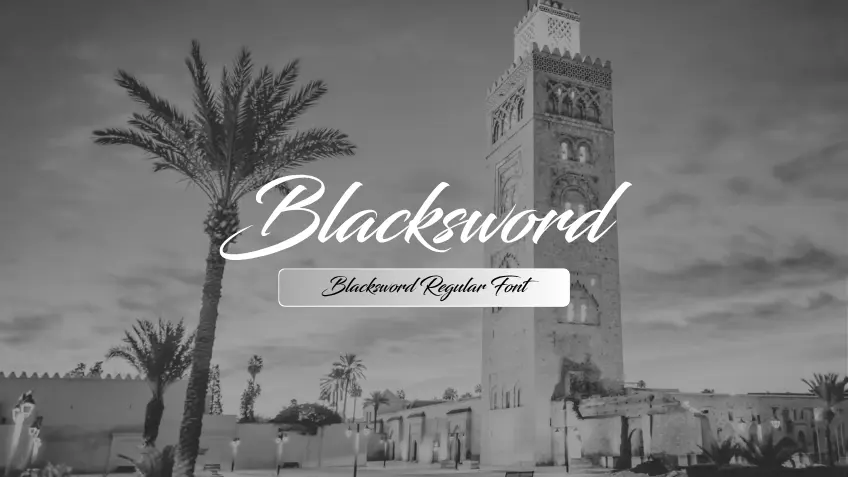
The font Blacksword Regular, designed by Youssef Habchi, falls under the Script category & Blacksword font family. Its smooth, flowing letterforms make it a versatile choice for projects that require both elegance and readability. Blacksword is particularly well-suited for Invitations and Stationery, Logos and Branding, Academic and Historical Research and Signatures and Watermarks. With its balance of simplicity and decorative appeal, this font brings a polished touch to both personal and professional designs.